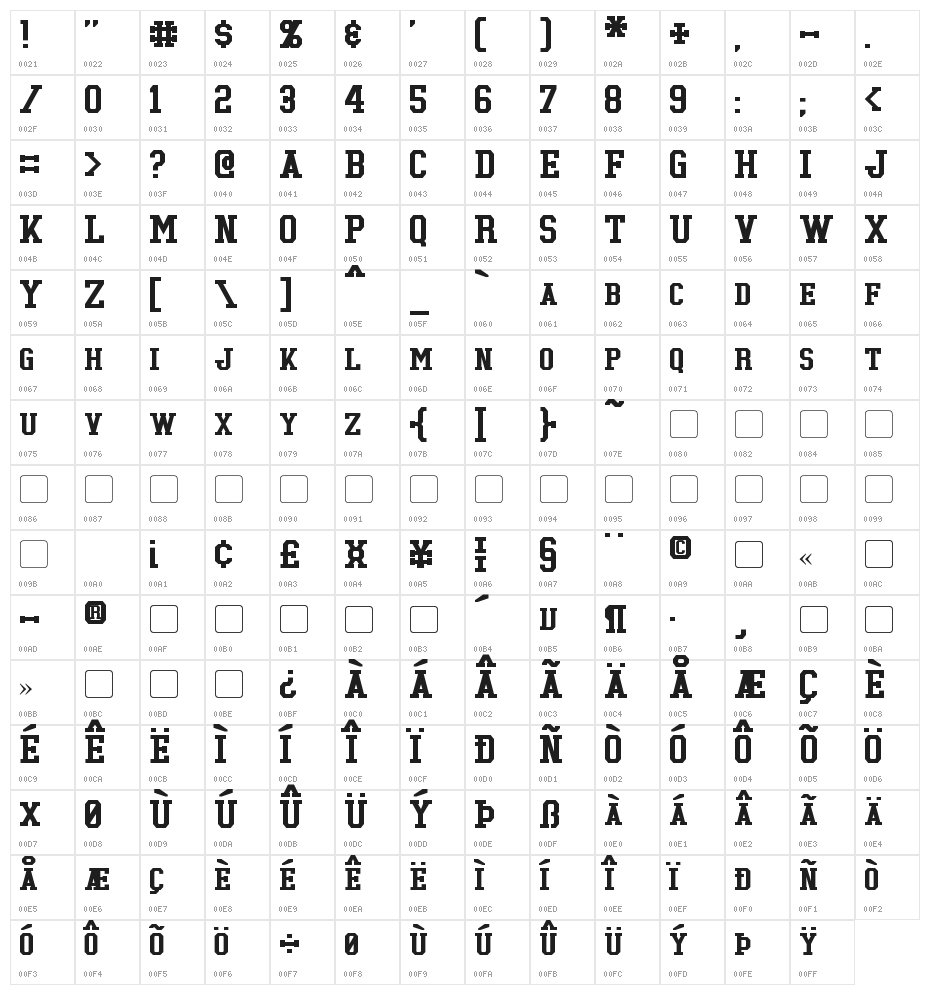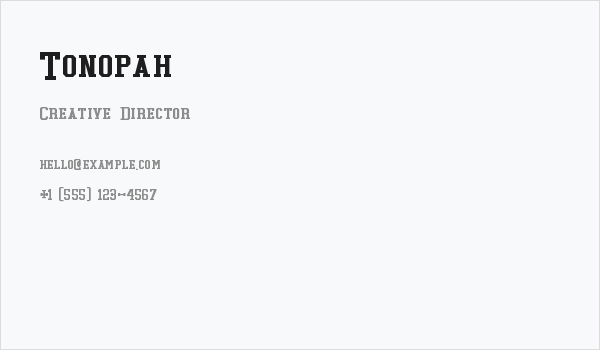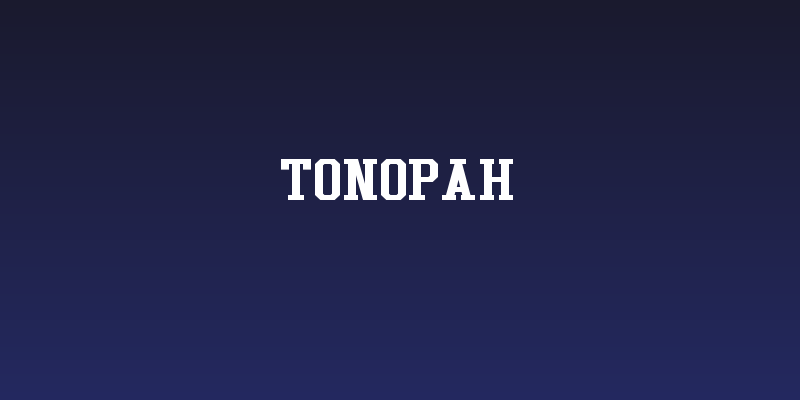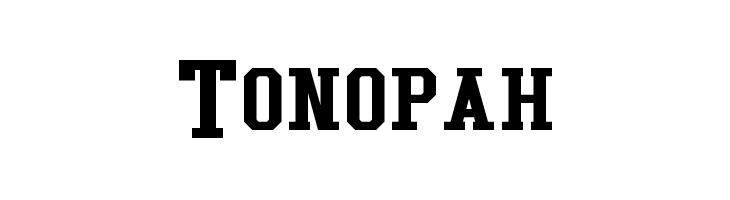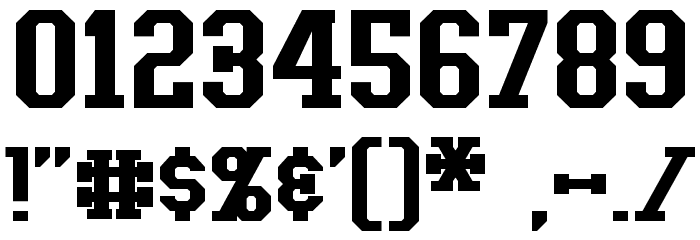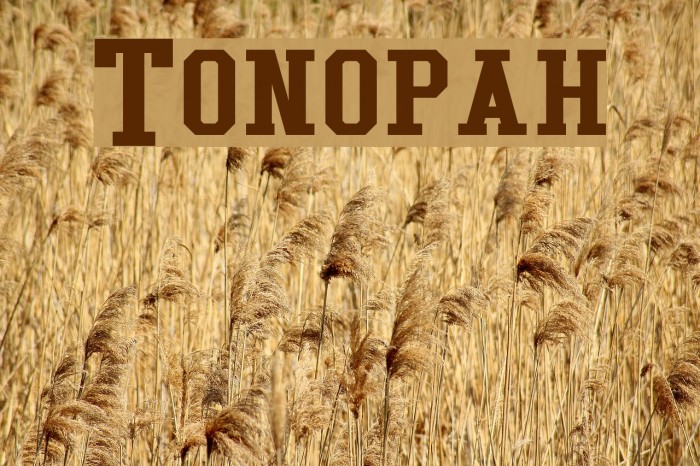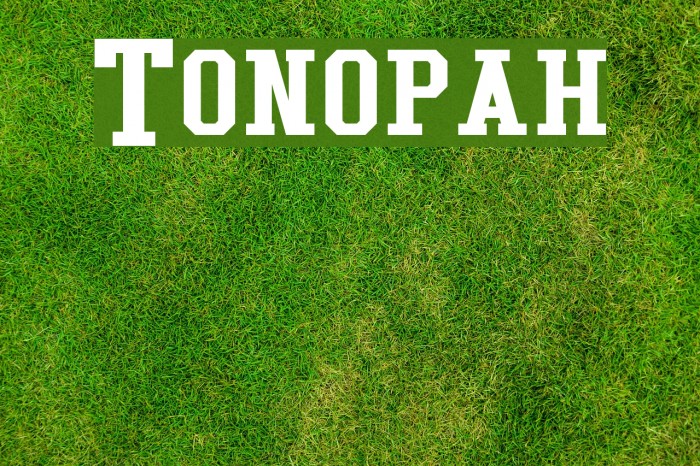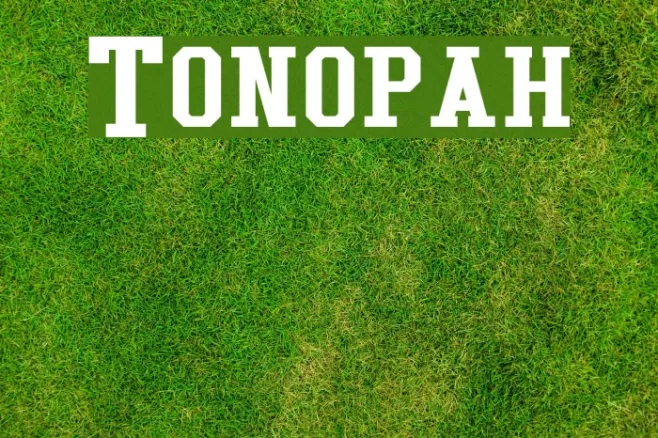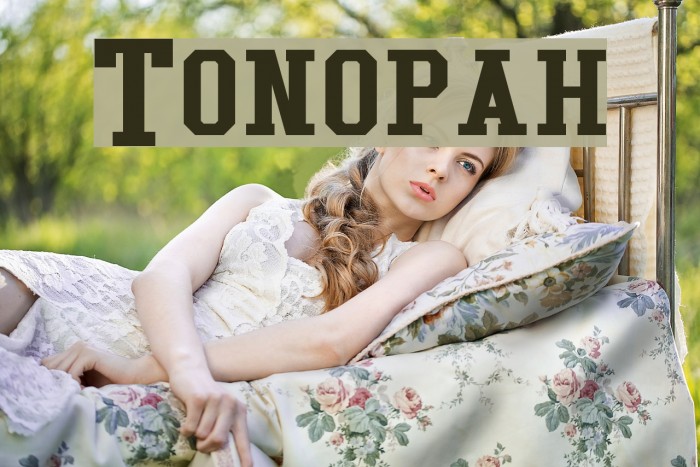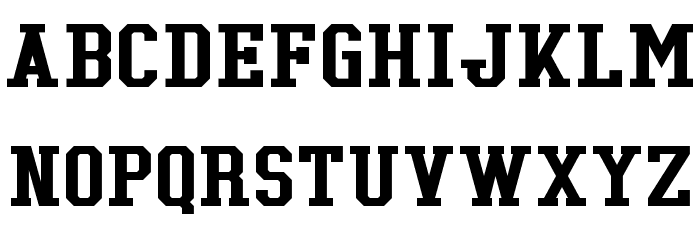
Tonopah Font
Tonopah Description
This font features a bold and robust slab serif design, characterized by thick, block-like serifs and a strong presence. The uppercase letters are uniform in height, with a consistent stroke width that gives the font a solid and sturdy appearance. The numerals and special characters maintain the same boldness, ensuring a cohesive look across all characters. The font's geometric shapes and straight lines contribute to its modern yet timeless appeal, making it suitable for a variety of design applications. Its clear legibility and impactful style make it ideal for attention-grabbing headlines and titles.
| Proposed Projects | Ideal for posters, logos, branding materials, and any design requiring a bold, impactful typeface. |